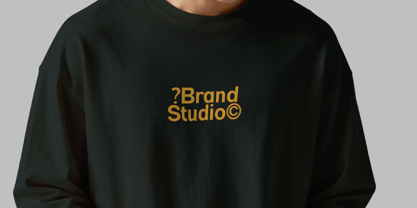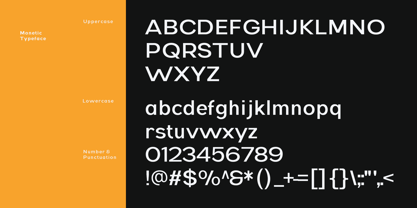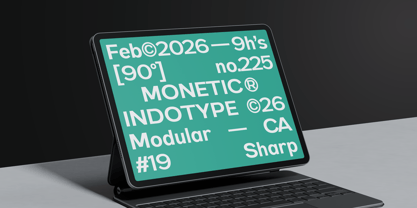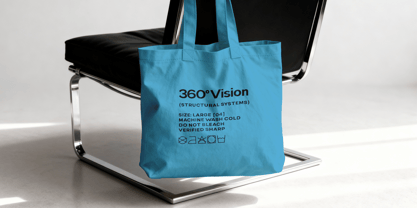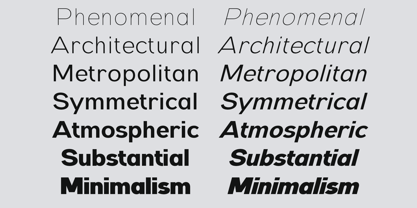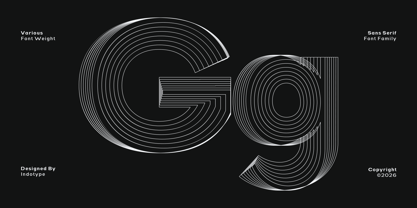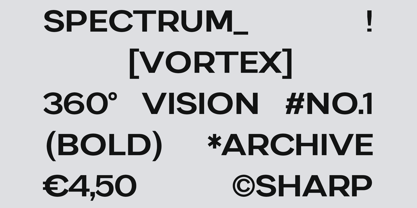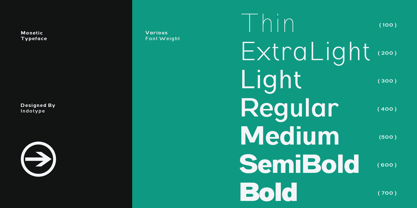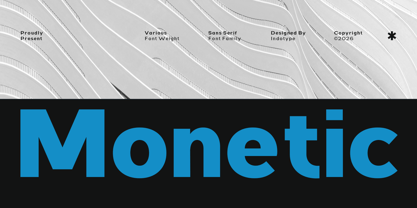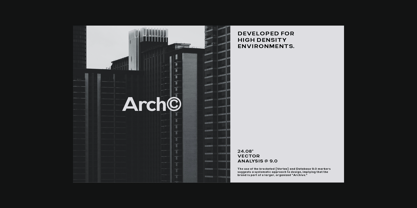
IT Monetic
by Indotype
The IT Monetic Font Family was designed by Dede Kurniawan and published by Indotype. IT Monetic contains 14 styles and family package options. More about this family
Monetic is a thoughtfully crafted sans-serif typeface family designed for maximum versatility and timeless functionality. Built on clean geometric principles with subtle humanist details, Monetic achieves a perfect balance of modern precision and approachable warmth. Its carefully considered proportions ensure exceptional legibility across all sizes and applications, making it a reliable workhorse for designers across every discipline. This comprehensive family features various font weights, providing the flexibility to create cohesive typographic systems for any project—from delicate captions to commanding headlines. Whether used for corporate branding, editorial design, digital interfaces, or wayfinding systems, Monetic adapts seamlessly while maintaining its consistent, professional character. It's more than a font family; it's a foundation for clear, effective communication. • Ideal for: Corporate Branding & Identity, Editorial & Publication Design, Digital Interfaces & Web Design, Wayfinding & Signage, Marketing & Advertising, Packaging Systems. • Classification: Sans-Serif, Geometric, Family, Multilingual. • Attributes: Versatile, Clean, Professional, Modern, Reliable, Balanced, Timeless.